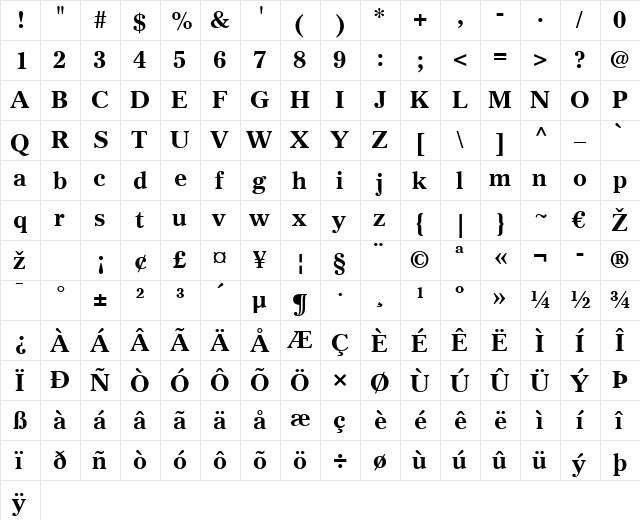
Gazette LT Roman Bold
Design Context for Gazette LT Roman Typeface
Gazette LT Roman is a composed and adaptable typeface that performs quietly and consistently across a wide range of design contexts. The heavy weight commands attention and anchors typographic hierarchies.